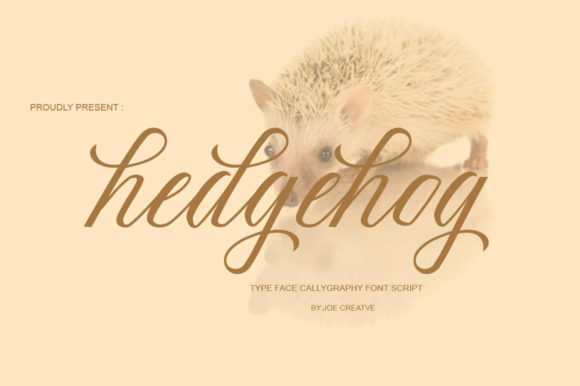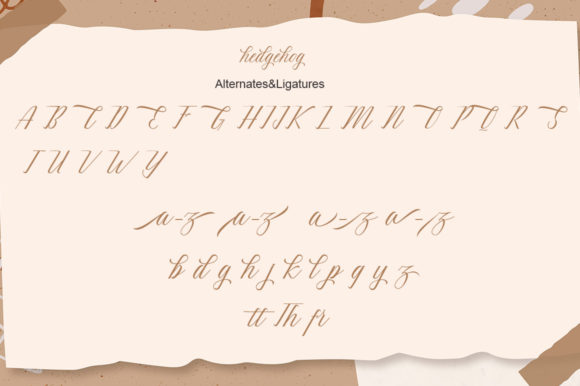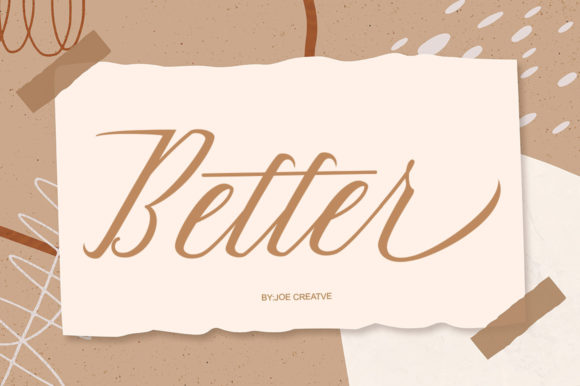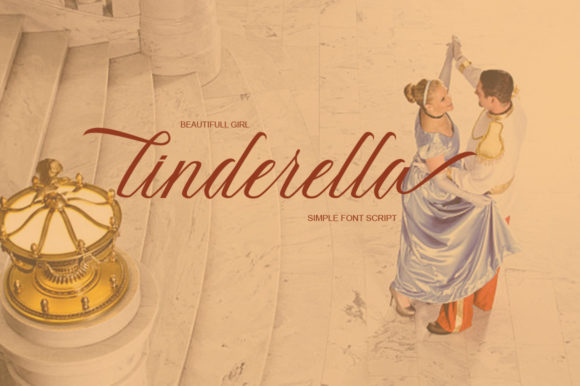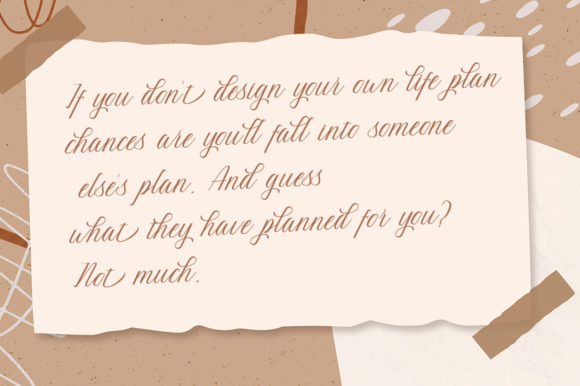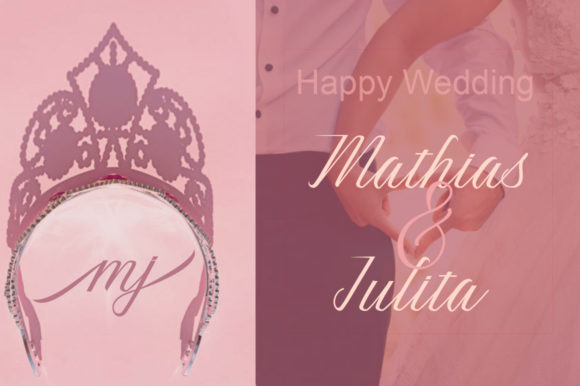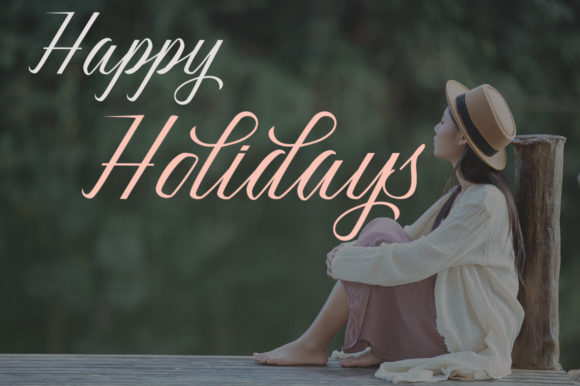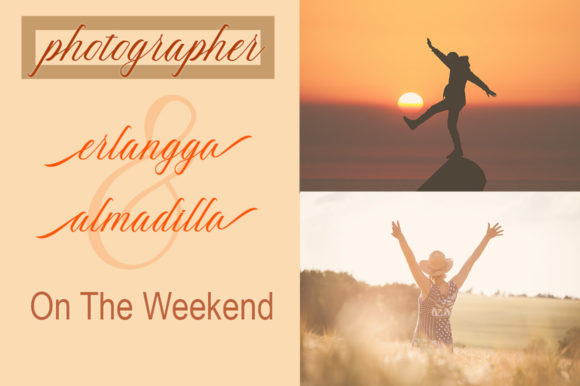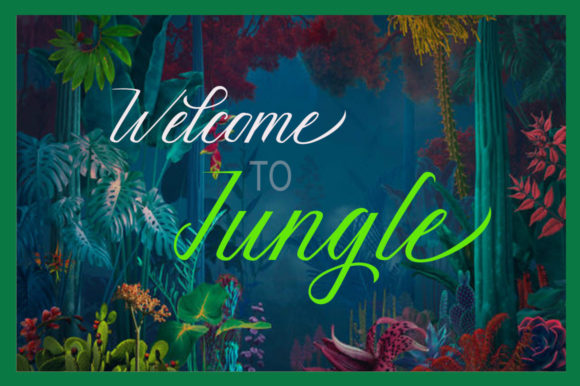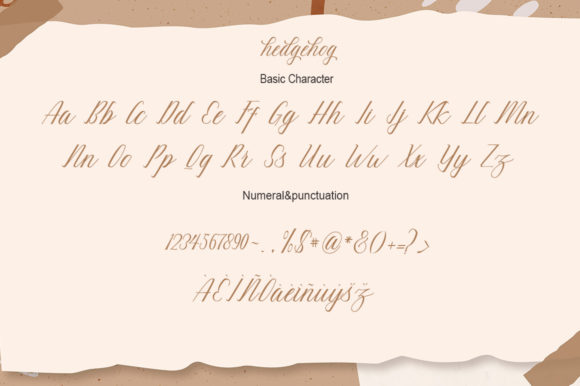
Hedgehog Font
“Hedgehog” is a dynamic script font characterized by its flowing and unrestrained design. It has been tailored for a diverse range of applications including packaging, invitation cards, flyers, mockups, event posters, and any other project that demands a touch of sophistication and elegance.
The font’s defining feature is its ability to evoke a sense of high-quality aesthetics, making it an excellent choice for projects that aim to convey a refined and polished appearance.
The font’s characters are not only visually appealing but also carefully balanced, making it a seamless fit within a wide spectrum of design contexts. Its adaptability is particularly evident when employed in larger design projects, where its inherent aesthetic qualities can truly shine.
One of the font’s advantageous features is its PUA encoding, enabling effortless access to its complete set of glyphs and swashes. This encoding ensures that users can easily explore and integrate the various design elements, enhancing the creative potential of the font.
To sum up, “Hedgehog” script font is a versatile and captivating option, well-suited for a plethora of design purposes. Its dynamic, free-flowing design adds a touch of finesse to creative projects, and the PUA encoding simplifies the process of incorporating its intricate details into your work.